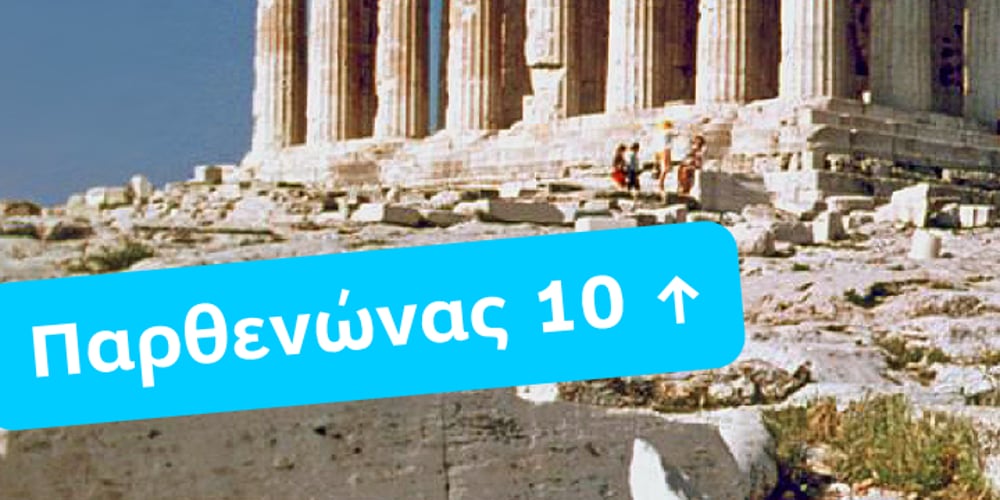
Osnova Navigation
Osnova Navigation font
Osnova Navigation Font Family was designed by Andrij Shevchenko and published by AndrijType. Osnova Navigation contains 12 styles and family package options. The common Slavic word Основа (Osnova) means basis in English and βάση in Greek. This universal but still distinctive typeface can make a good ground for any design project. Special Navigation version separated by Western Latin, Greek and Cyrillic families is here.